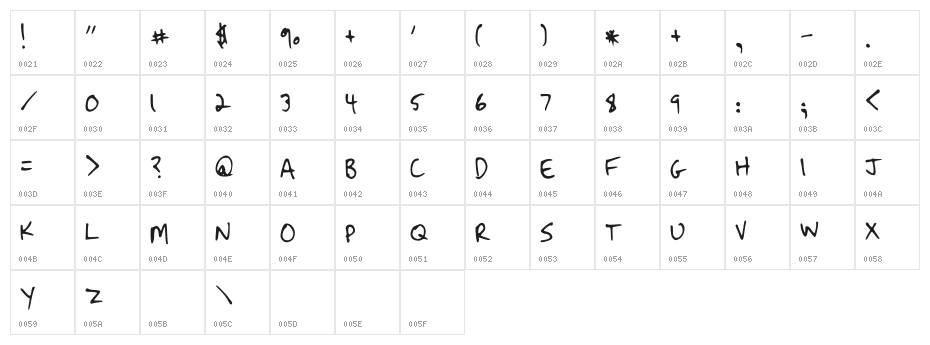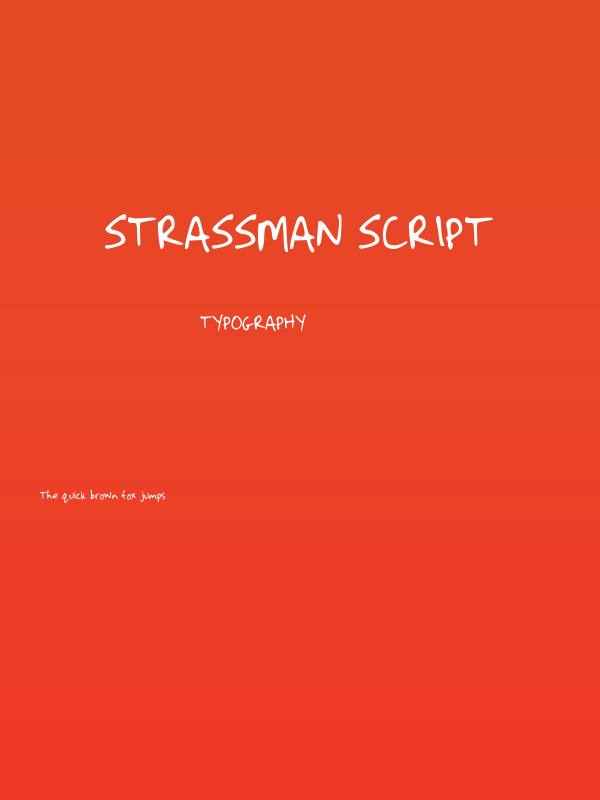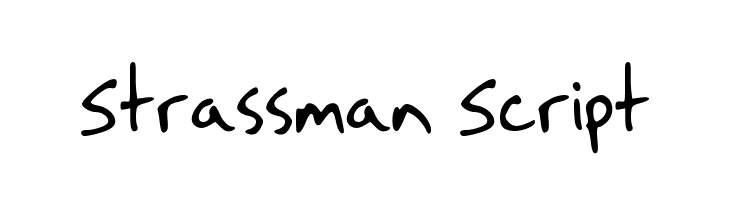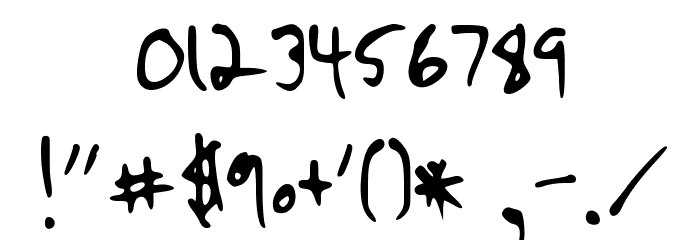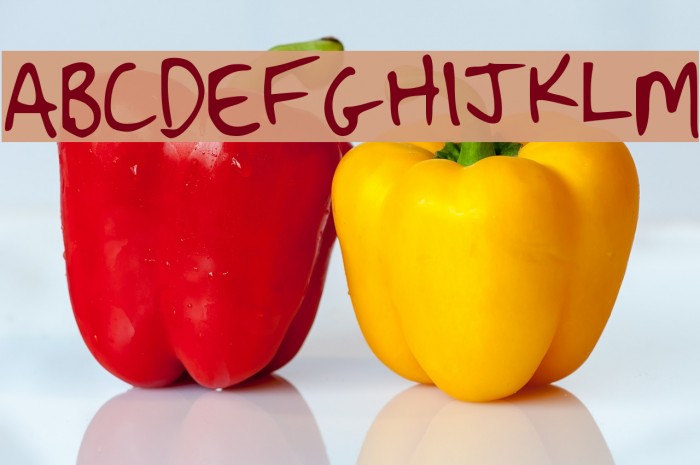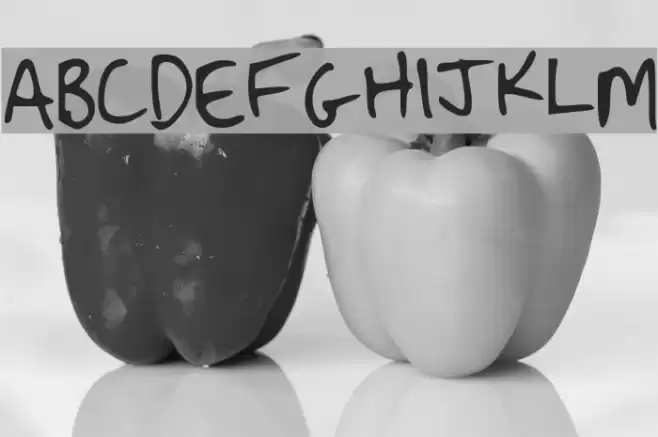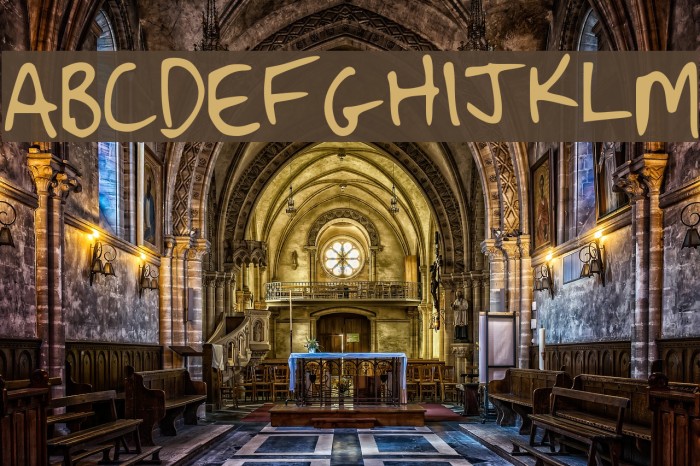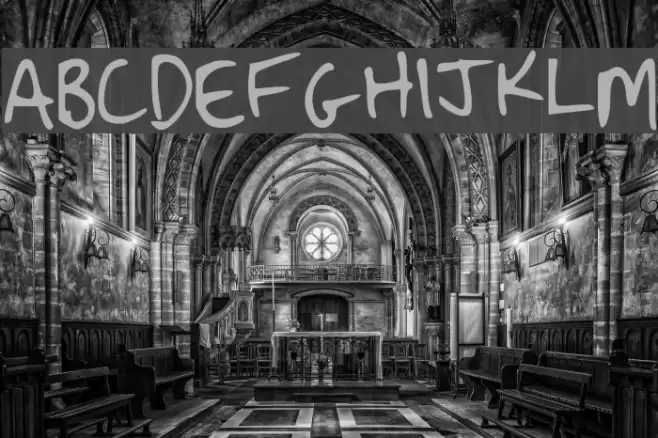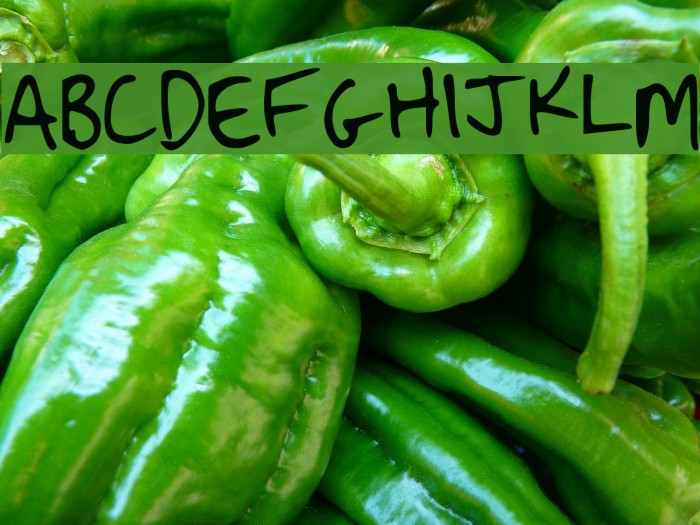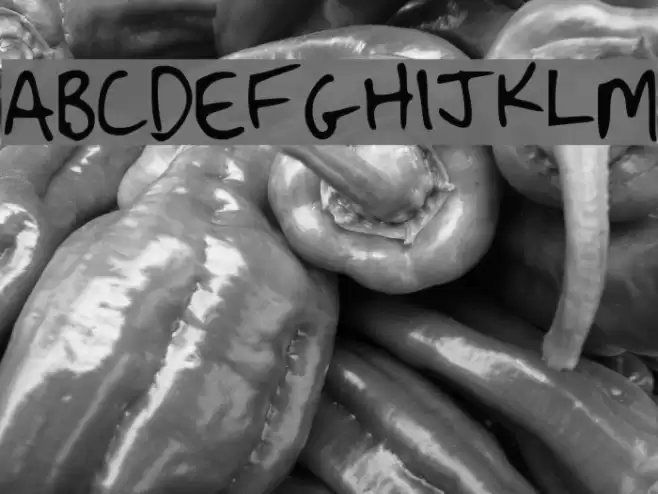
Strassman Script Font
Strassman Script Description
This font exudes a casual, handwritten style with a playful and informal appearance. The characters are slightly irregular, mimicking the natural flow of handwriting. The uppercase letters are bold and prominent, while the lowercase letters maintain a consistent flow with rounded edges. The numbers and special characters follow the same handwritten aesthetic, adding to the cohesive look. This font is perfect for projects that require a personal touch, such as invitations, greeting cards, or any creative design that benefits from a human element.
| Overall Style | Casual |
| Use Case | Headlines, Logos, Creative projects |
| Proposed Projects | Ideal for invitations, greeting cards, personal notes, and creative designs. |